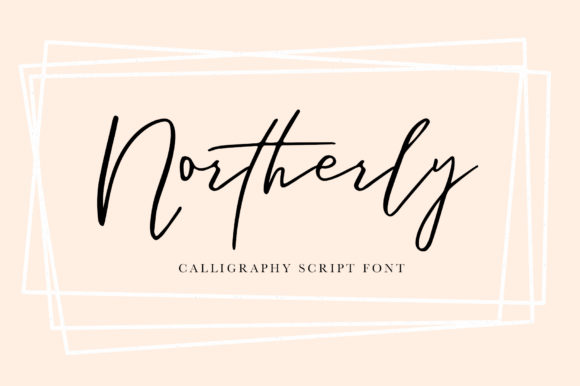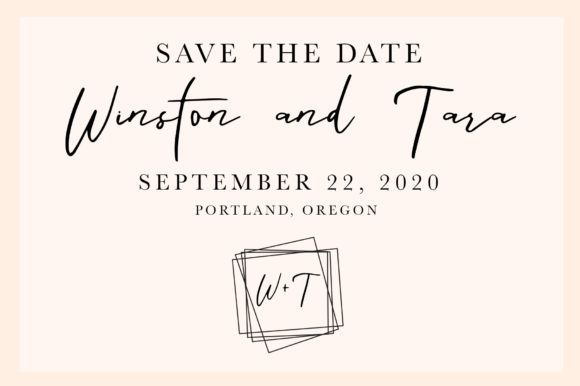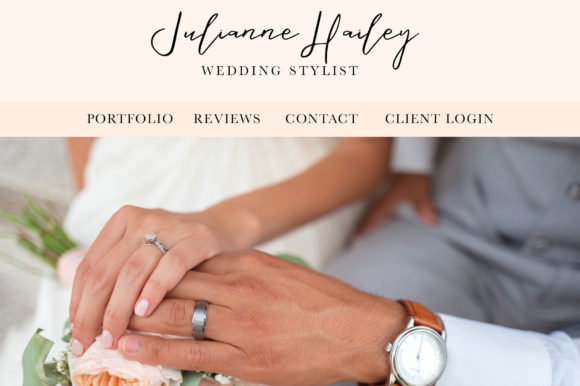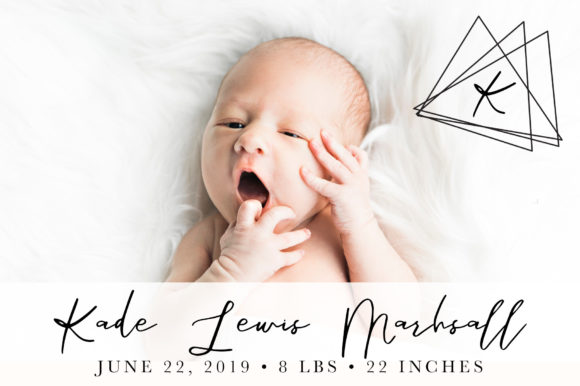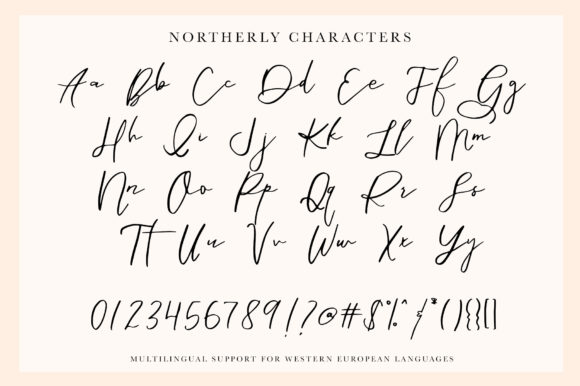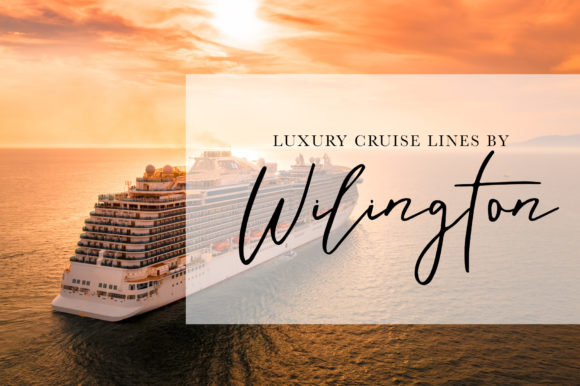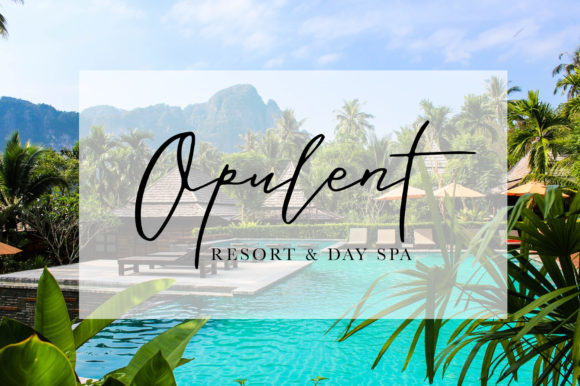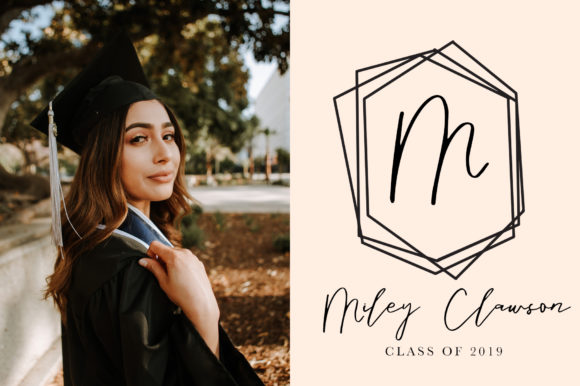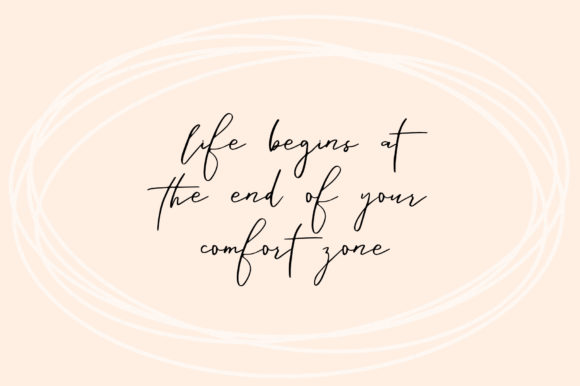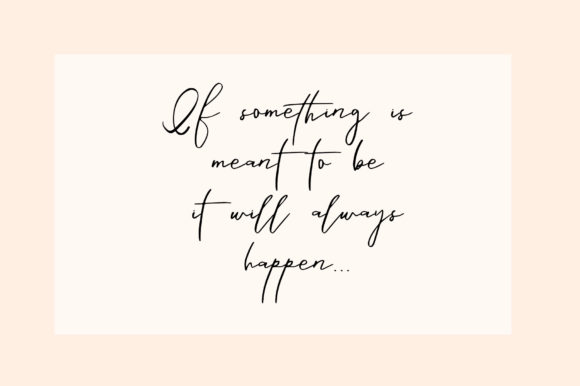
Northerly Font
About Northerly Font
Inspired by classic calligraphy, Northerly is a beautiful and simply stunning script. It will add an authentic flavor to any design project!